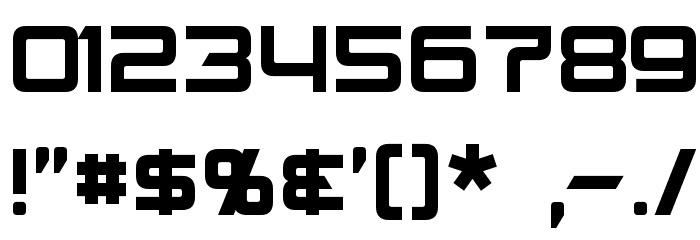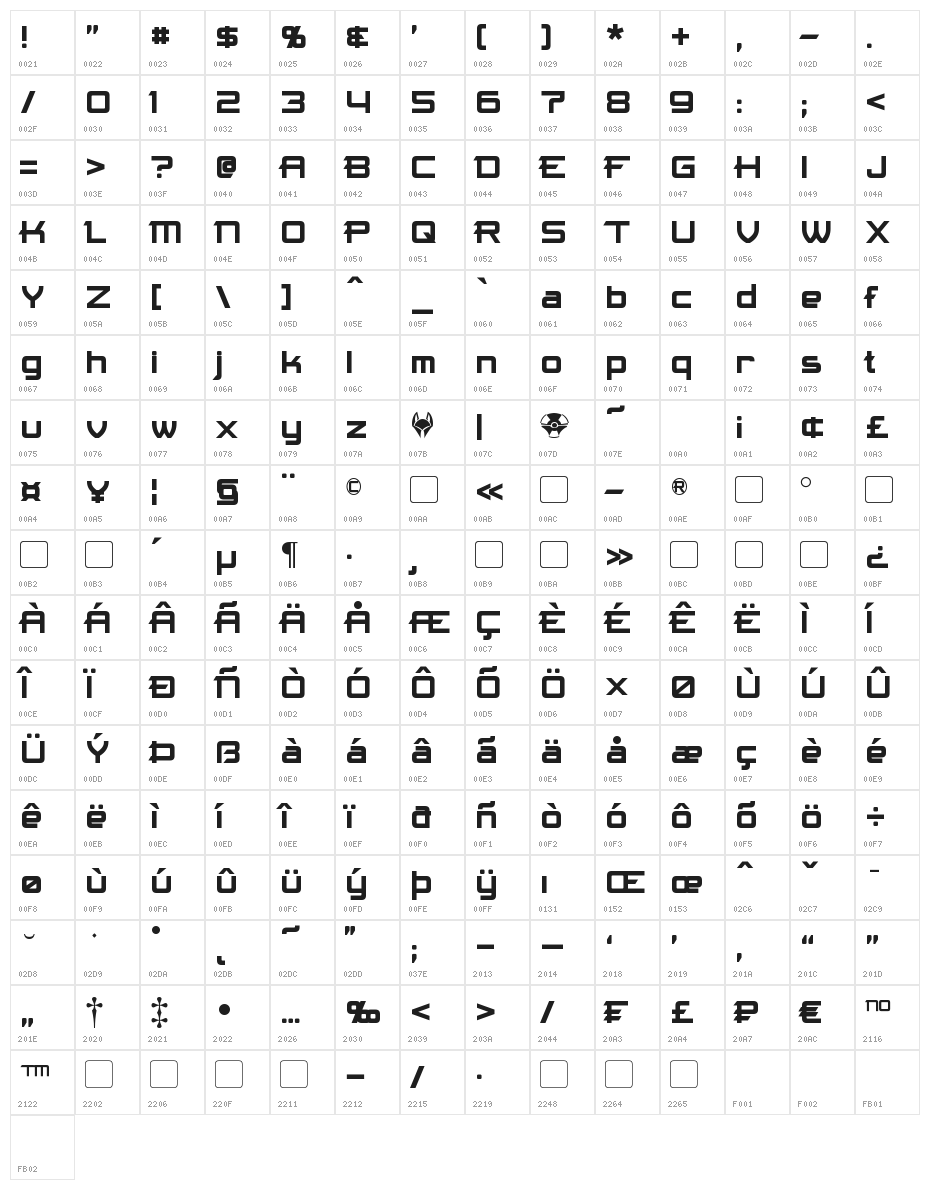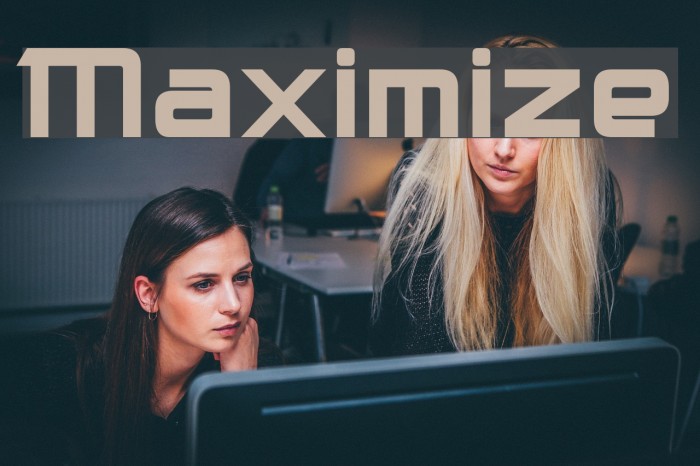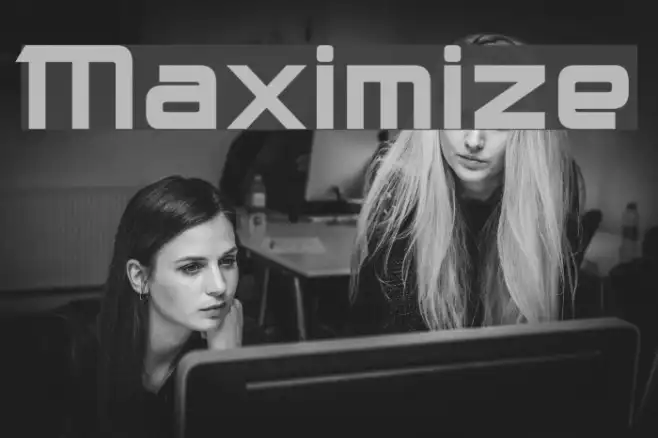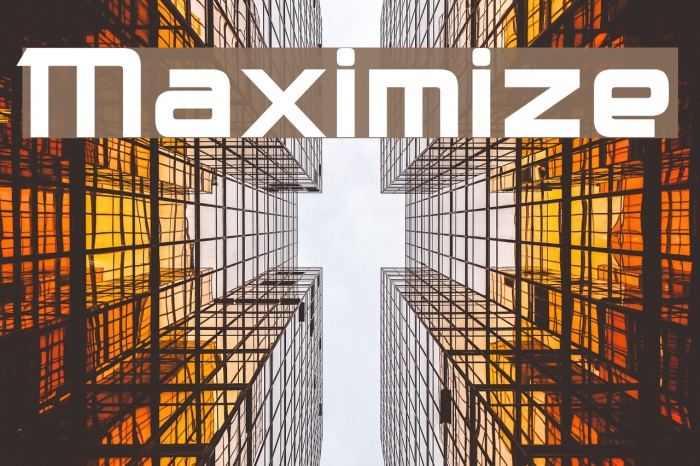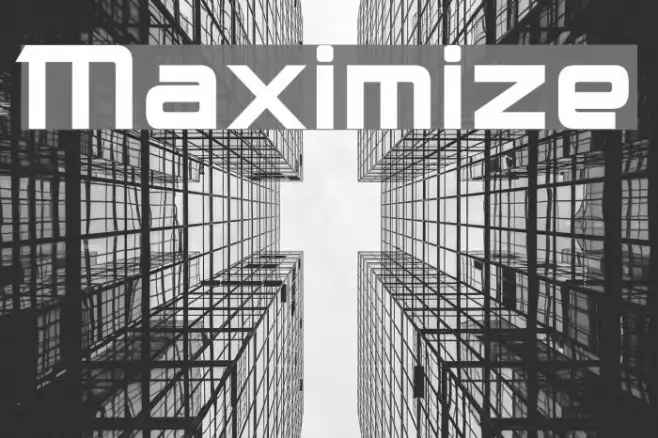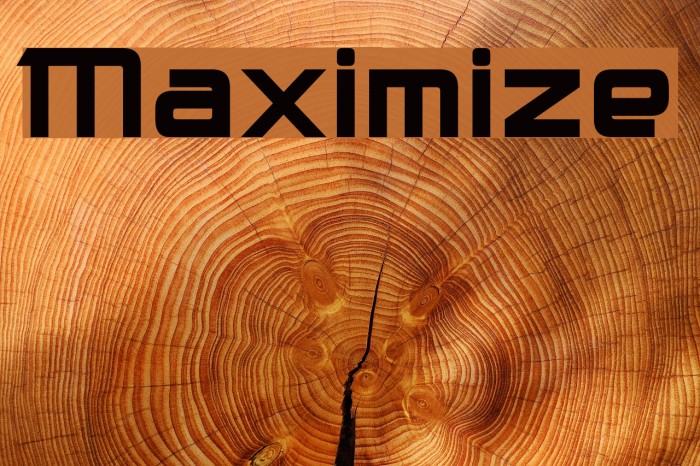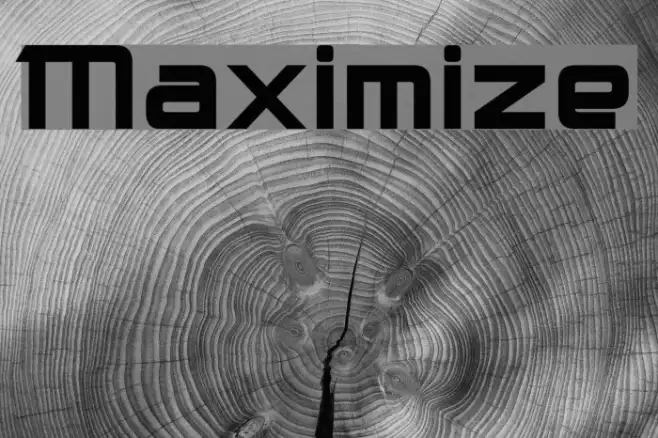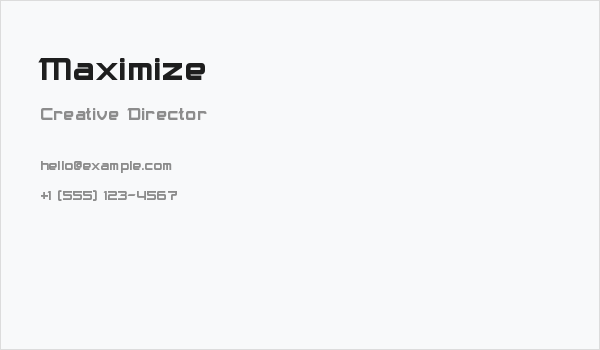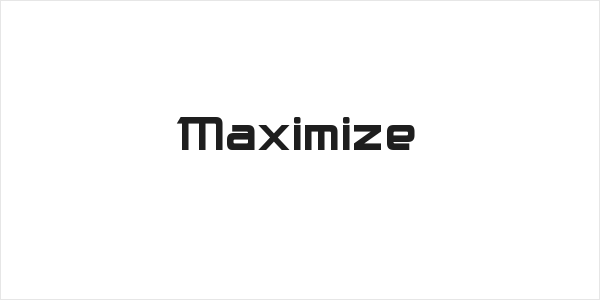
Maximize Font
Maximize Description
This font features a bold, geometric design with a futuristic and modern appeal. The characters are crafted with sharp angles and clean lines, giving it a distinct, tech-inspired look. The uppercase letters are particularly striking, with a uniform height and width that create a cohesive appearance. The lowercase letters maintain the same geometric style, offering a consistent visual flow. Numerals are clear and easily distinguishable, while the special characters complement the overall design. The font's structure is robust, making it suitable for impactful headlines and branding materials.
| Proposed Projects | Ideal for technology branding, sci-fi themed projects, video game titles, and modern advertising campaigns. |